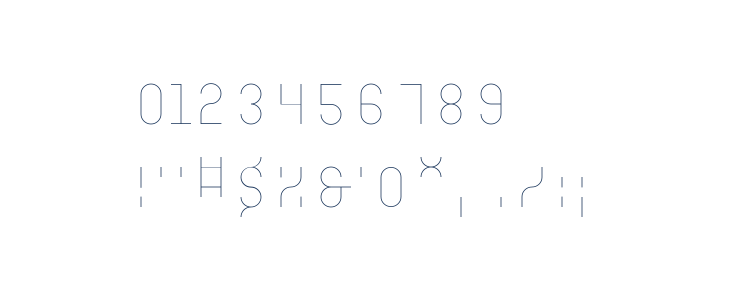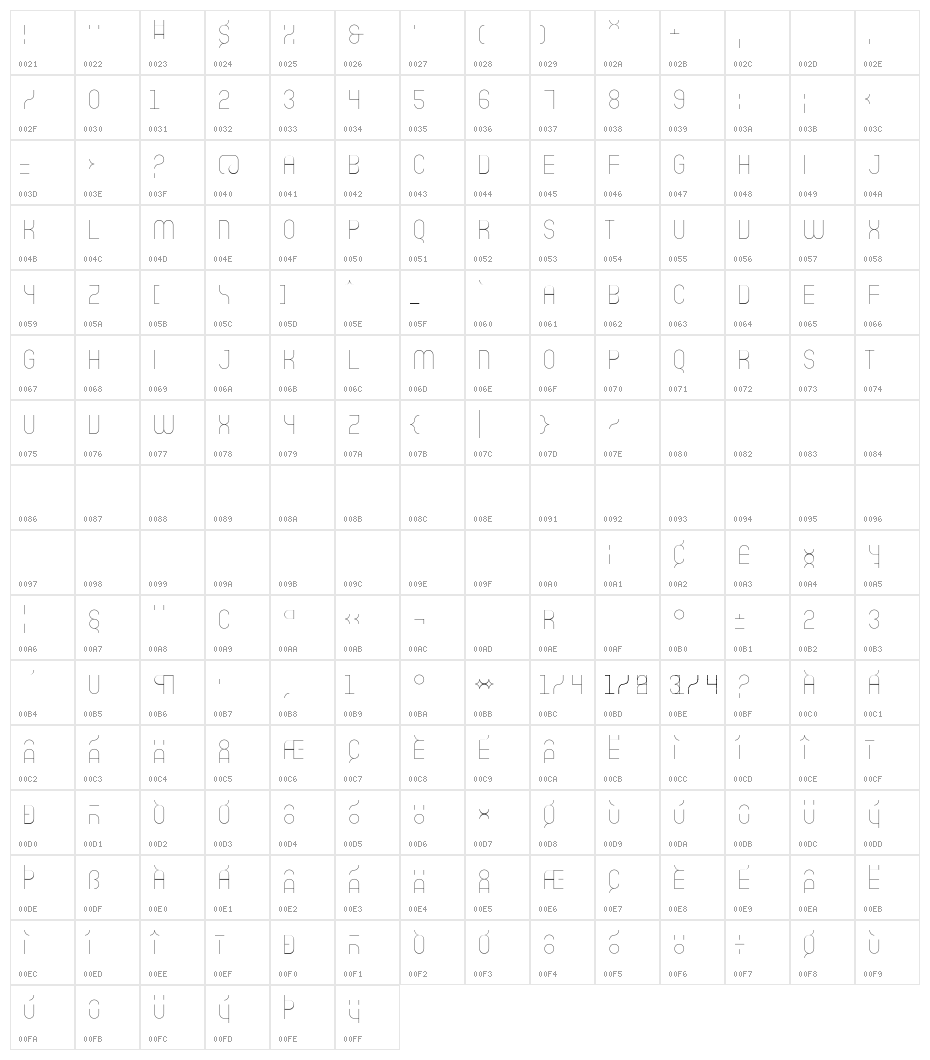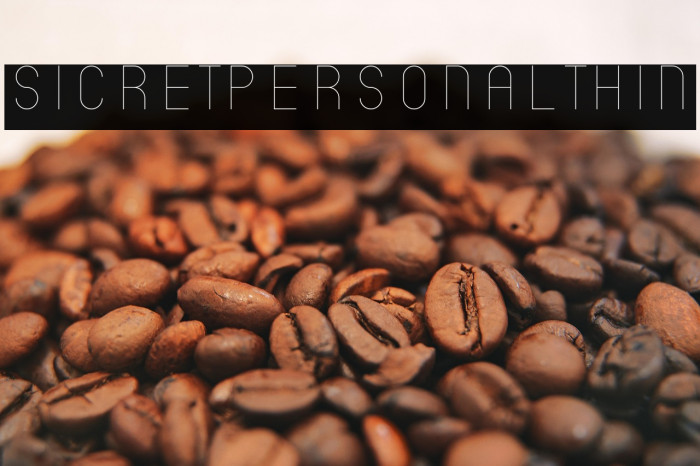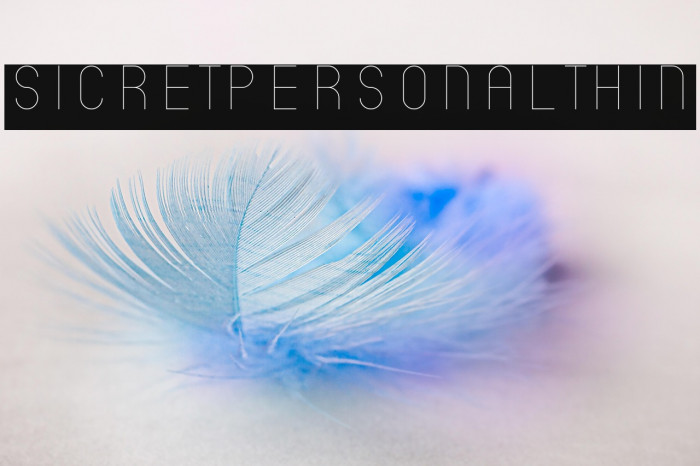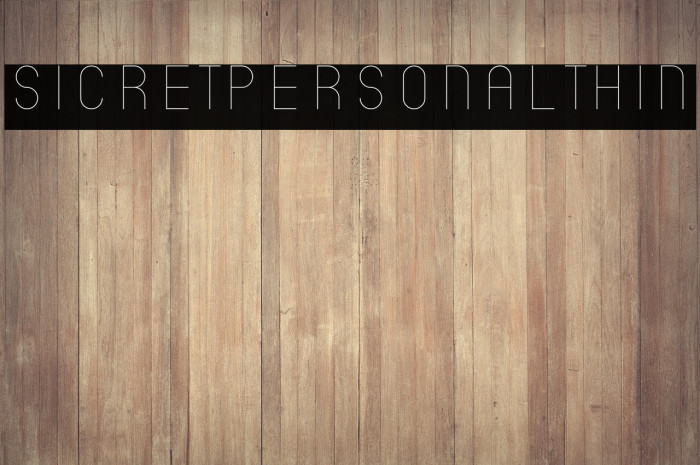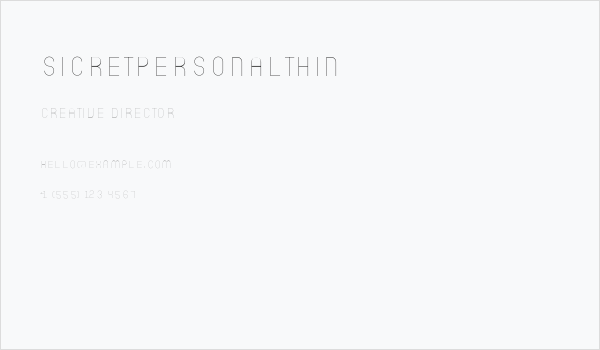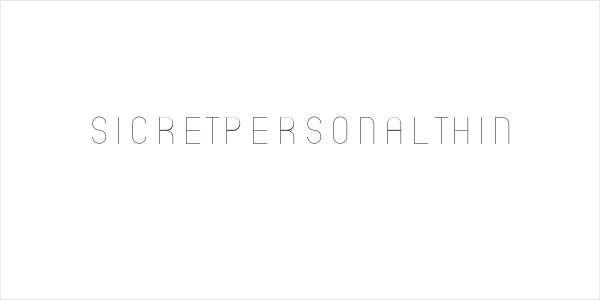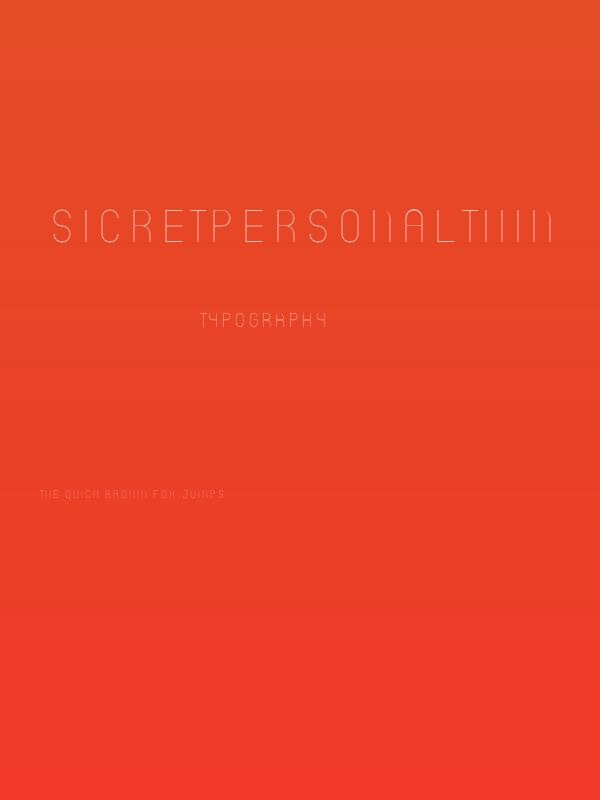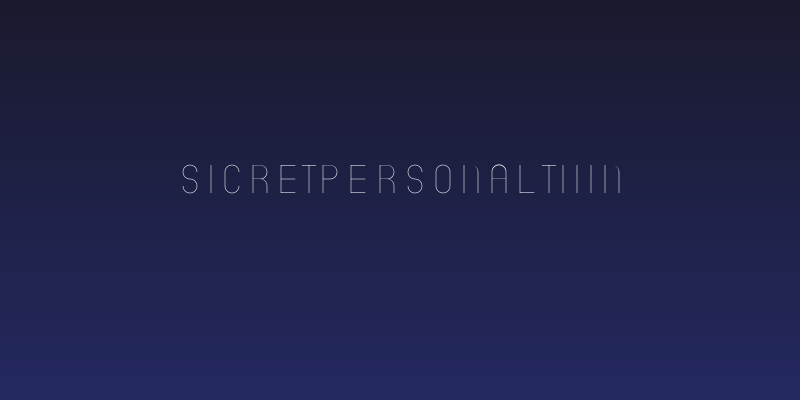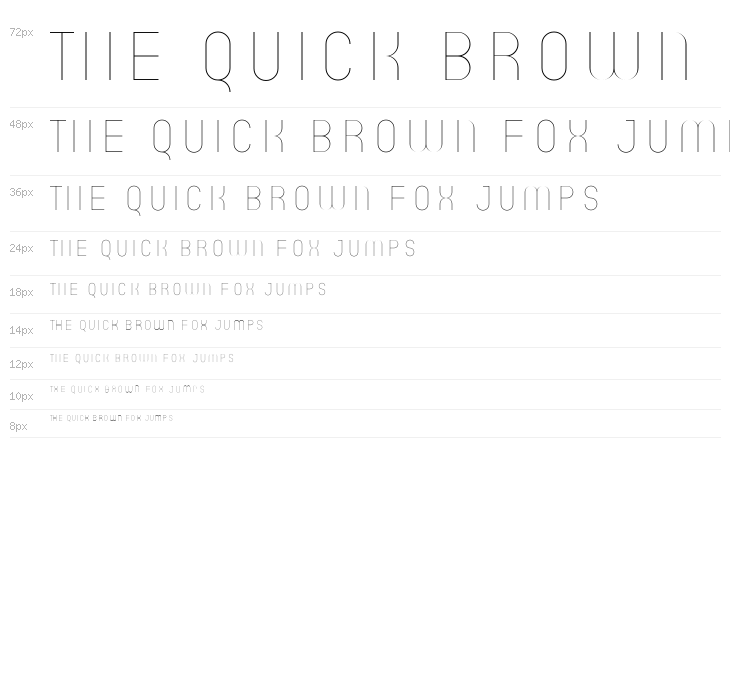
SicretPERSONALThin Font
SicretPERSONALThin Description
This font features a minimalist and geometric design, characterized by thin, uniform lines and a modern aesthetic. The uppercase and lowercase letters are crafted with precision, offering a clean and sleek appearance. The numerals and special characters maintain the same thin line weight, contributing to a cohesive look across all characters. The font's simplicity and elegance make it suitable for contemporary design projects where clarity and style are paramount. Its geometric shapes and open forms provide a sense of space and readability, making it ideal for both digital and print media.